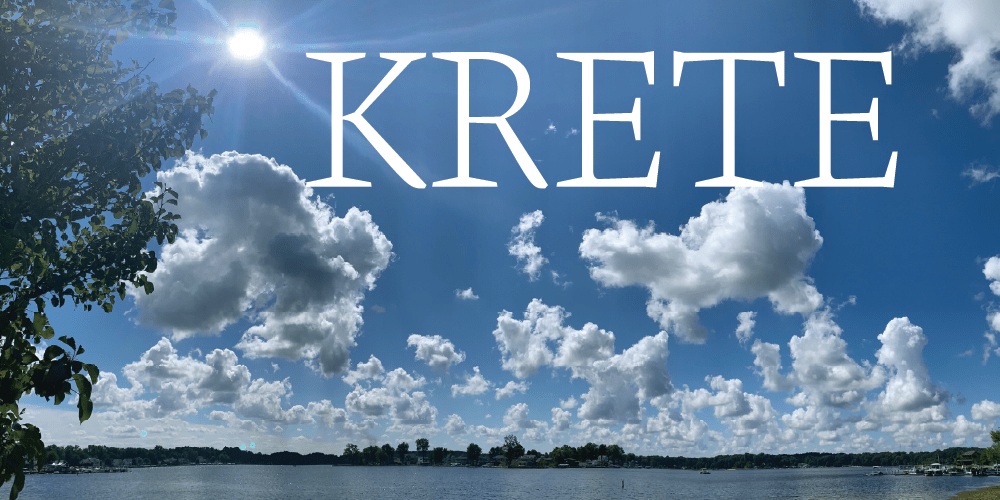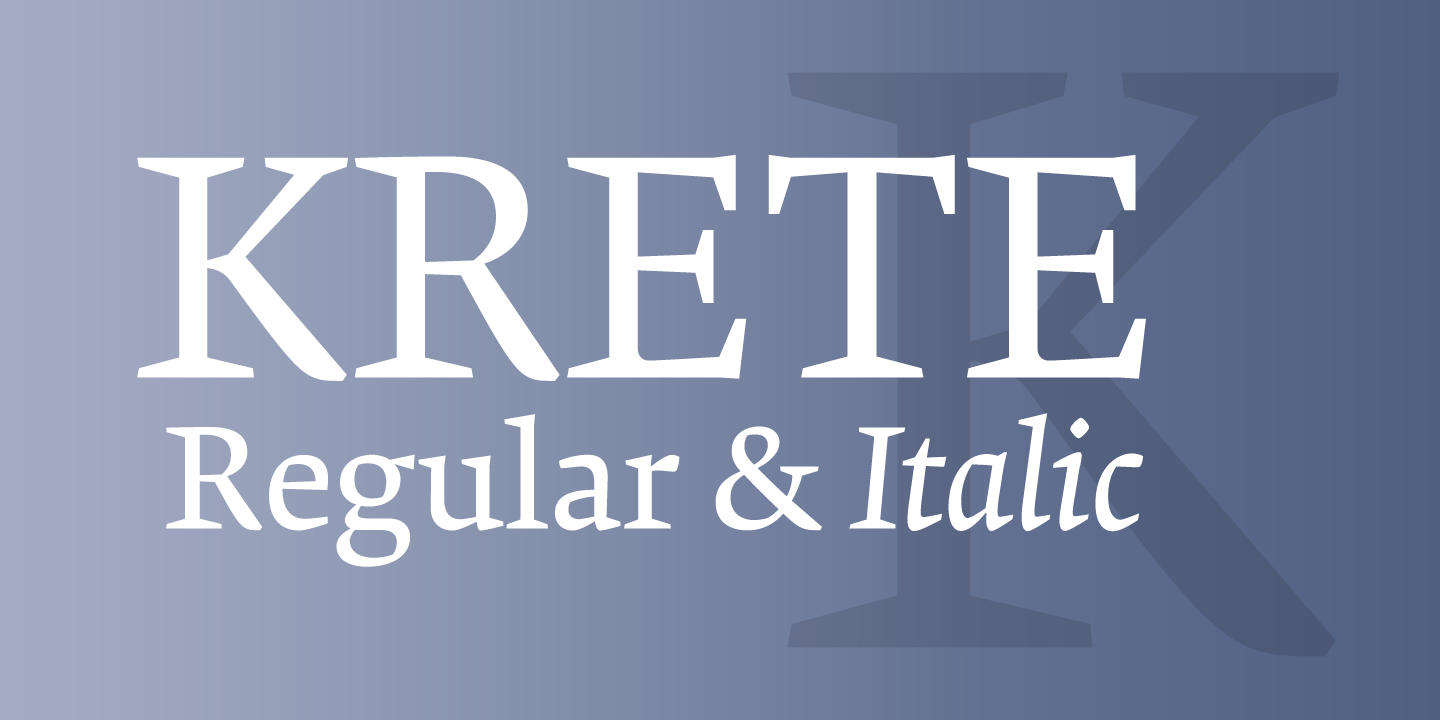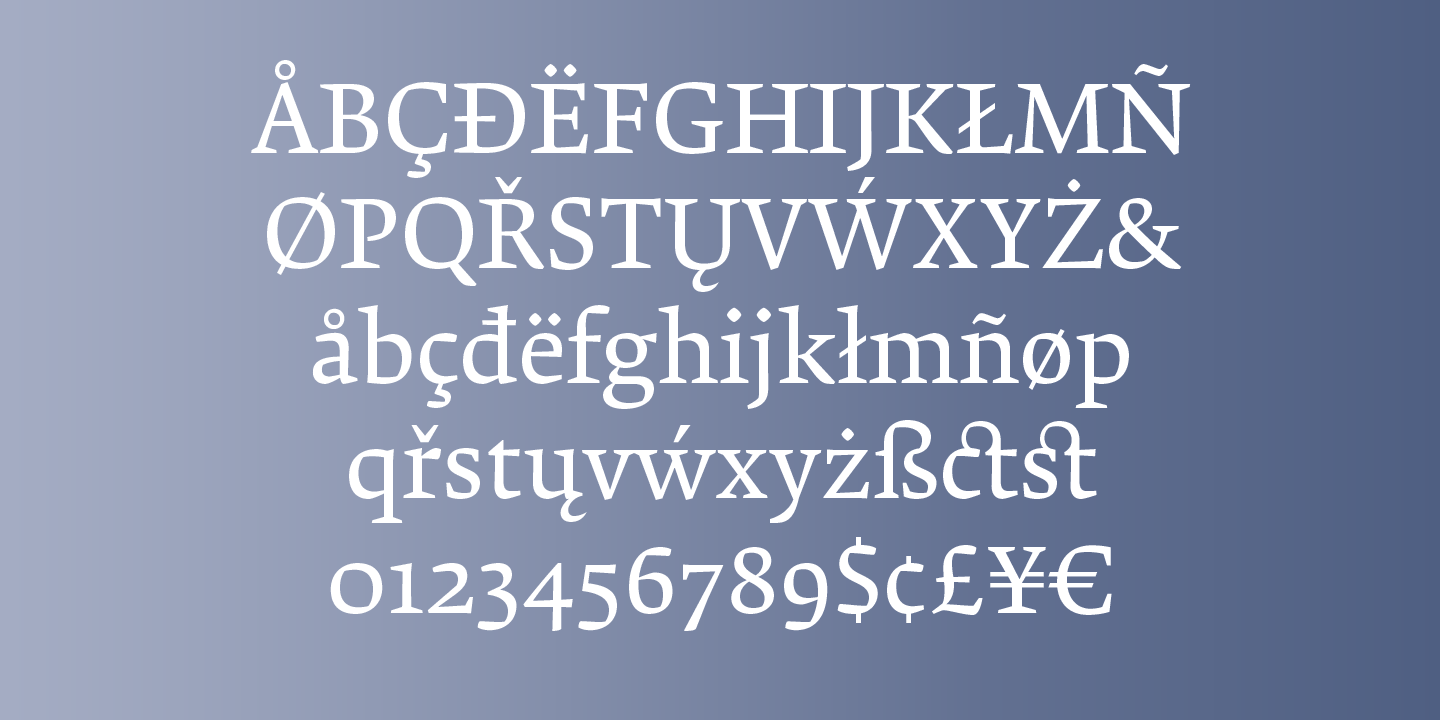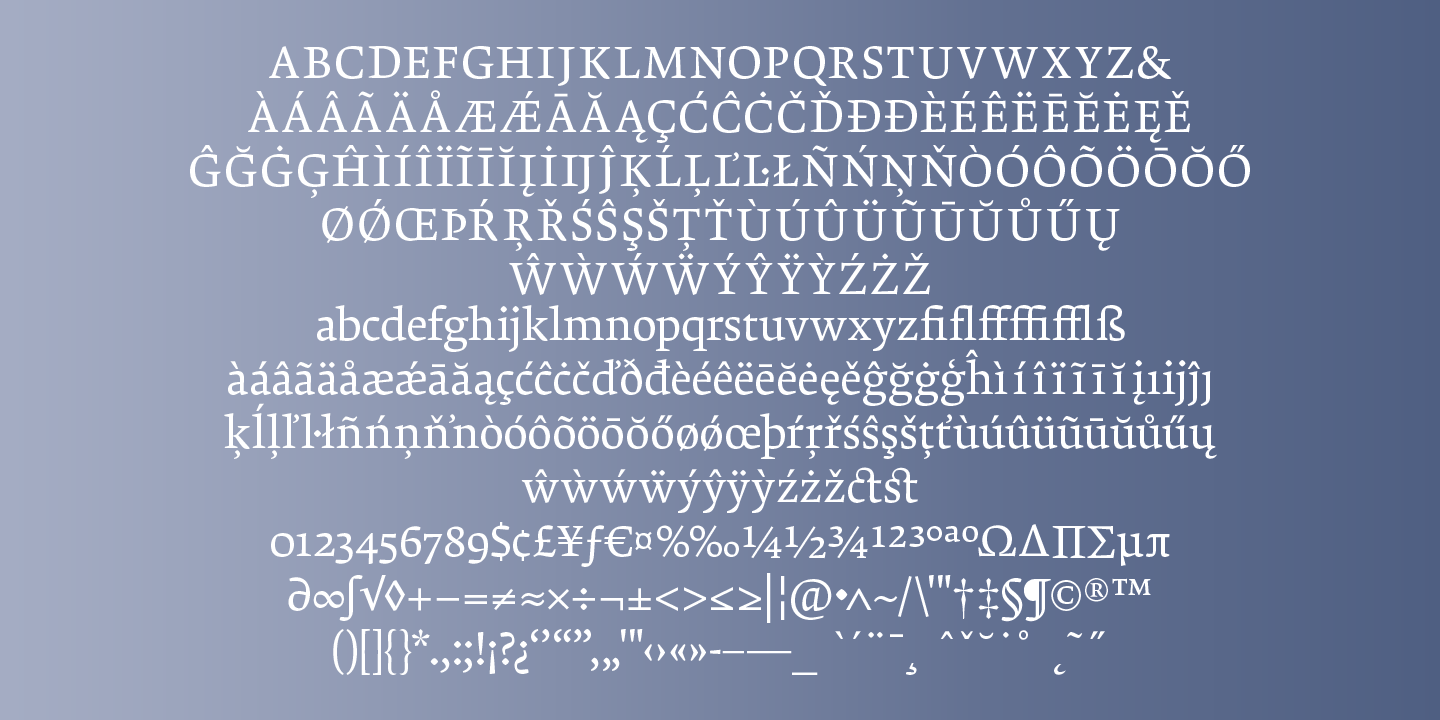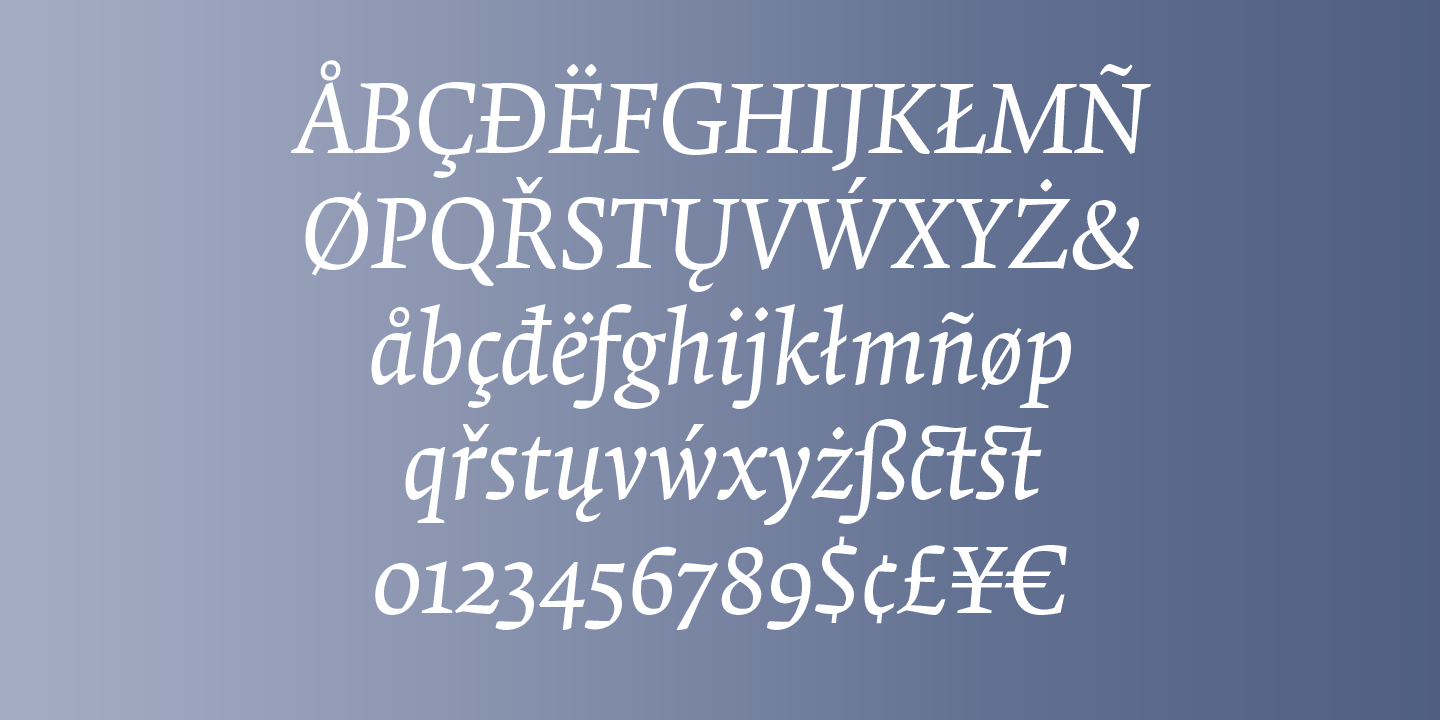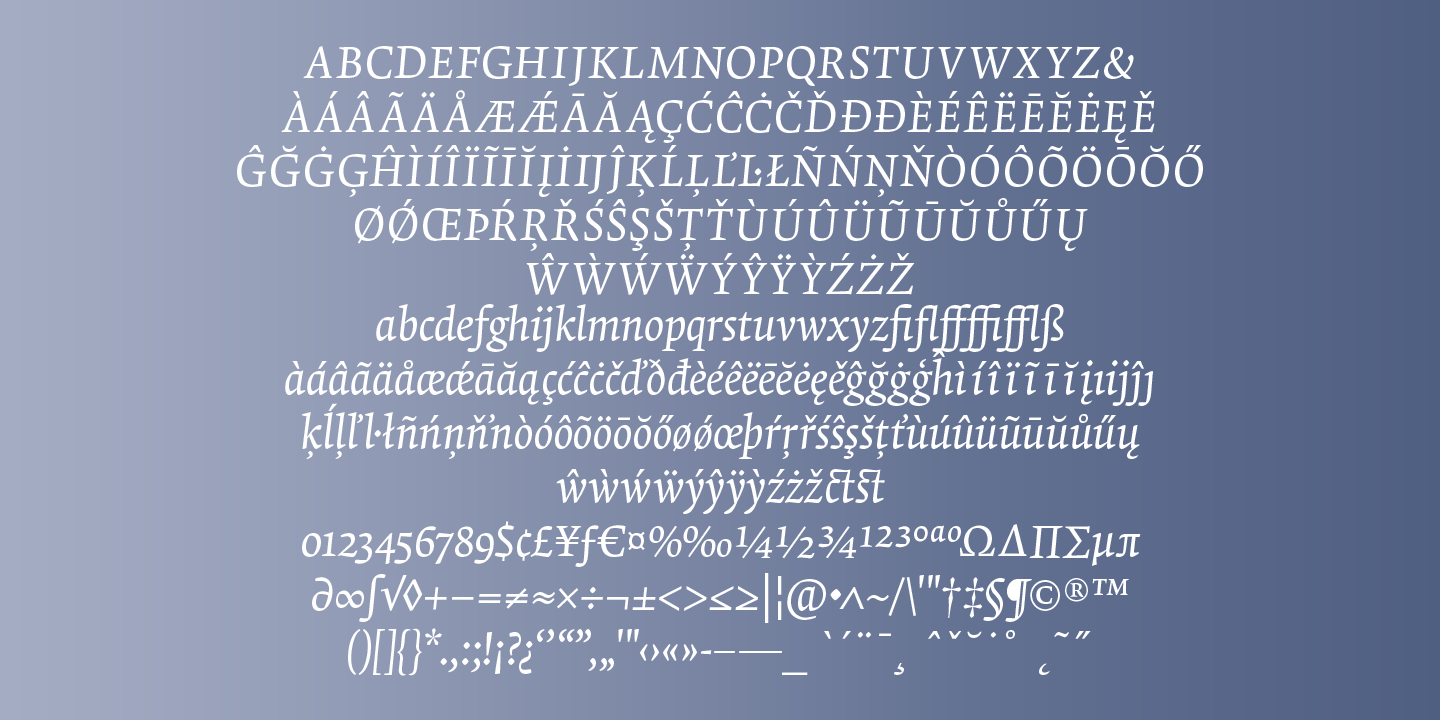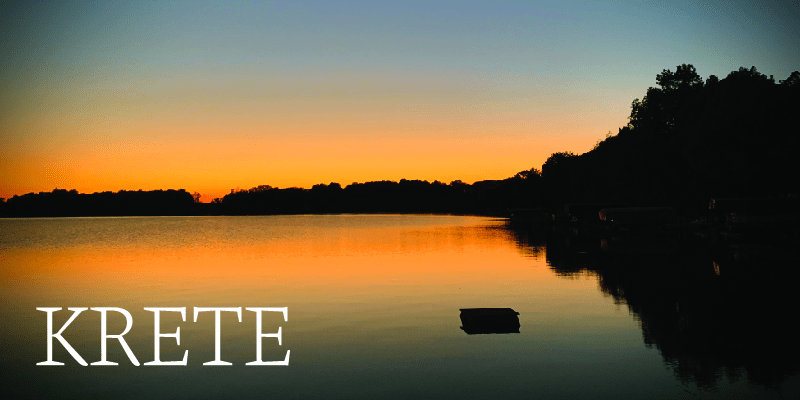
Krete
Krete is a hardy serif typeface by Roy Preston. Anchored by squared off wedge serifs and robust rounds, Krete demands attention. The figure set is old style, and there are several discretionary ligatures and an alternate base-aligning uppercase J. This package includes a companion weight drawn italic. It is a handsome typeface for text settings.
Krete and Krete Italic support an extended character set that covers many of the western and central European languages as well as these OpenType features: ligatures, discretionary ligatures, and stylistic alternates.